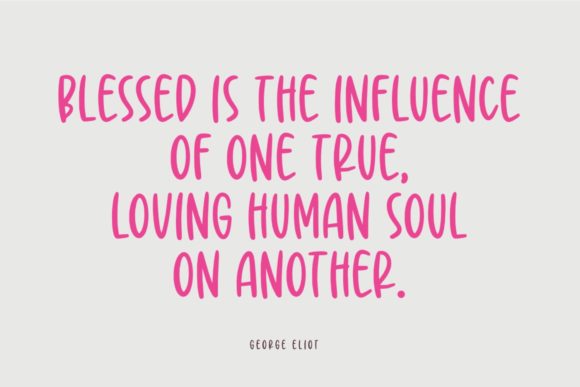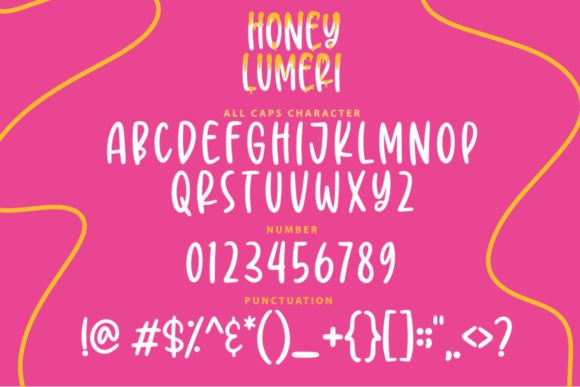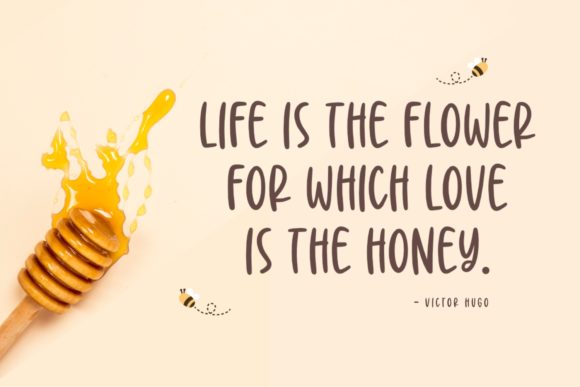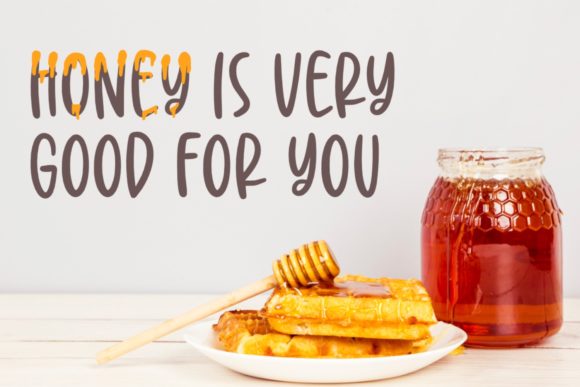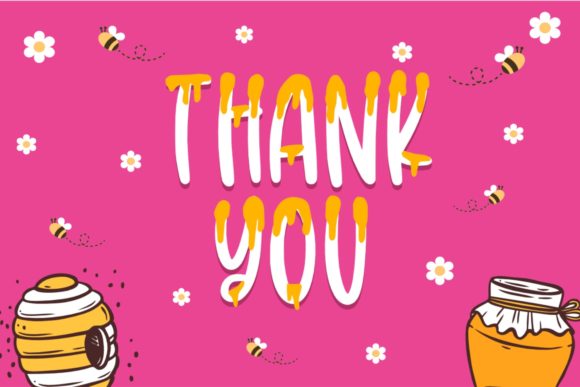
Introduction to Honey Lumeri Font Font
Fonts play a crucial role in design, and the Honey Lumeri Font font is a typeface that brings both character and versatility to any project. Whether you’re working on a branding project, a website, or a print design, the Honey Lumeri Font font offers a unique style that can elevate your work.
Honey Lumeri is a beautiful handwritten font with cute honey elements.
This font is suitable for brand logos or any design projects with happy themes .
Key Features of Honey Lumeri Font Font
Why Choose Honey Lumeri Font Font?
The Honey Lumeri Font font is more than just a typeface – it’s a design tool that helps you communicate your message with style and clarity. Its unique character set and versatile design make it suitable for a wide range of applications, from elegant invitations to bold headlines.
With its carefully crafted letterforms and balanced proportions, the Honey Lumeri Font font ensures readability and visual appeal across all mediums.
What makes Honey Lumeri Font font special?
The Honey Lumeri Font font stands out with its unique design, exceptional readability, and versatility across various design applications.